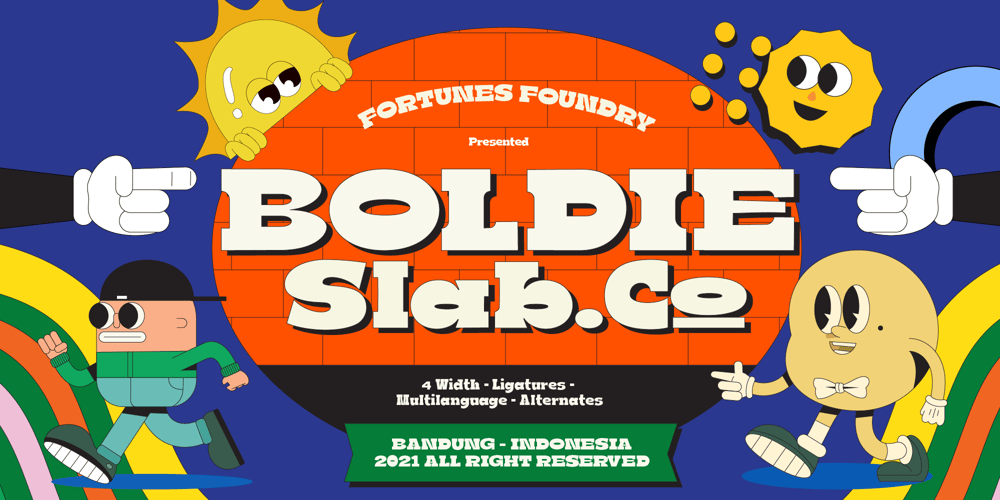
Fd Boldie Slab Font Family was designed by Ramandhani Nugraha and published by Fortunes Co. Fd Boldie Slab contains 4 styles and family package options. Boldieslab is a font width display type with slab contrast. bring if the old west and the 70s had a lovechild with not a unformal usage, it’s the perfect typeface for adding sophisticated playfulness to any design project.